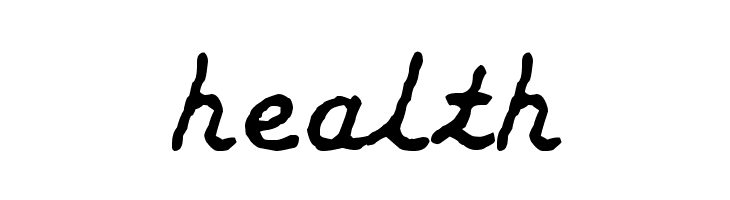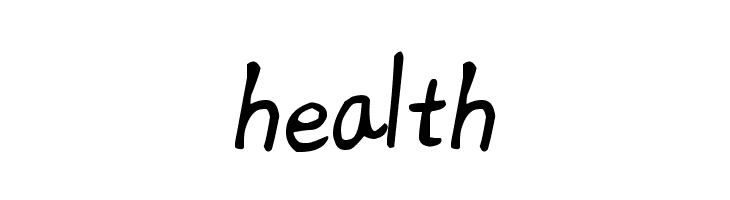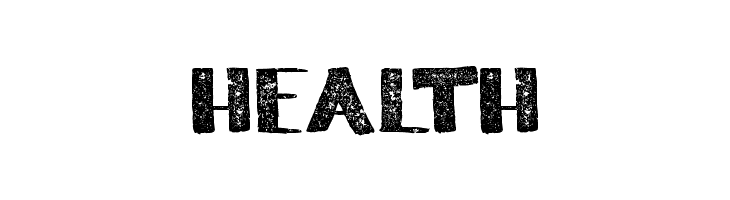
A vintage typewriter-style font with a handwritten, authentic feel.
A bold, graffiti-inspired font with a hand-drawn, dynamic style.
A vintage typewriter-style font with a bold, textured appearance.
A vintage typewriter font with a bold, monospaced design and textured appearance.
A bold, distressed font with a vintage, industrial stamp-like appearance.
A bold, distressed font with a vintage industrial stamp style.
A graceful, cursive script font with elegant, flowing lines.
A bold, distressed font with a rugged, grunge-like texture.
A vintage, distressed typewriter-style font with a rugged, monospaced design.
A bold, textured typewriter-style font with a vintage, distressed look.